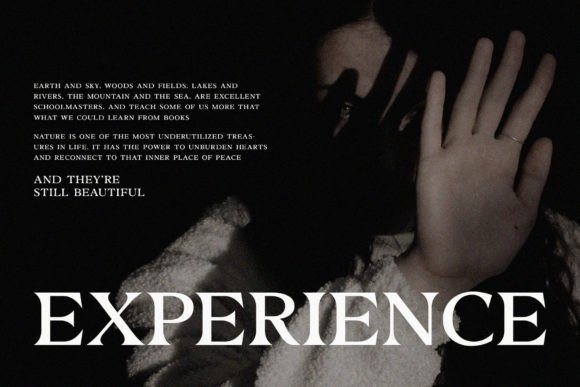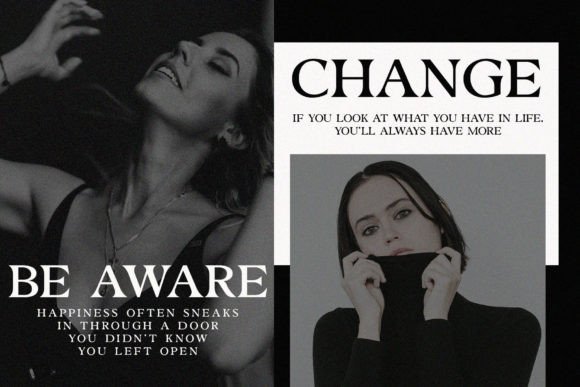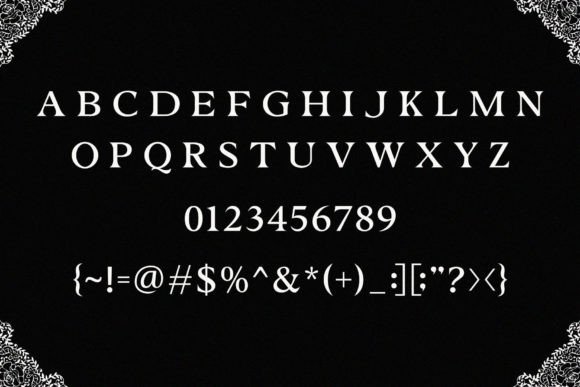
Introduction to Qersa Font
Have you ever been in the middle of a creative project, staring at a blank screen, trying to find the perfect font to bring your design to life? It’s a feeling we’ve all been through, and it’s exactly why we’re excited to introduce the Qersa Font – a game-changing addition to your design arsenal.
With its modern and elegant aesthetic, the Qersa Font is perfect for designers looking to add a touch of sophistication to their websites, logos, magazines, and social media designs. Whether you’re working on a high-quality brochure or a simple yet effective logo, this versatile font is sure to elevate your design to the next level.
What makes the Qersa Font truly valuable is its ability to be used in a variety of settings, from transparent backgrounds to free downloads, making it an essential design resource for any creative project.
Key Features of Qersa Font
- High-quality typography with a modern and creative design, ideal for various creative projects.
- Unique characteristics include elegant lines, precise letterforms, and a harmonious balance of serif and sans-serif elements.
- Perfect for use in graphic design, digital art, and other creative projects where a high-quality font is essential.
Honest Review: Qersa Font
As a designer, I’m always on the lookout for high-quality design resources that can elevate my creative projects. Recently, I stumbled upon the Qersa Font, and I must say, it’s been a game-changer for my designs.
What works well: ✨ The Qersa Font offers a wide range of styles, from elegant to modern, making it perfect for a variety of design projects. The font is highly customizable, allowing me to adjust the size, color, and spacing to fit my needs. The transparent background feature is also a plus, making it easy to layer with other design elements.
- High-quality design: The font is professionally designed and offers a high level of detail and precision.
- Design versatility: The Qersa Font can be used for a wide range of design projects, from logos to brochures.
However, there are a few limitations: ⚠️ The font can be quite heavy on some systems, which may lead to slower loading times. Additionally, some users may find the font to be a bit too ornate for certain design projects.
Overall impression: The Qersa Font is a valuable addition to any designer’s toolkit. Its high-quality design, transparent background feature, and free download make it a must-have resource for any creative project. While it may have a few limitations, the benefits far outweigh the drawbacks.
The Qersa Font is a high-quality, free design resource ideal for creative projects. It features a transparent background, making it perfect for overlaying on images or videos.
Tips for Getting the Most Out of Qersa Font
Experiment with different font sizes and colors to create a unique visual effect. You can also use the Qersa Font in combination with other design elements to create a cohesive look.
The Qersa Font is ideal for:
- Overlay text on images or videos
- Create eye-catching headings and titles
- Design social media graphics and promotional materials